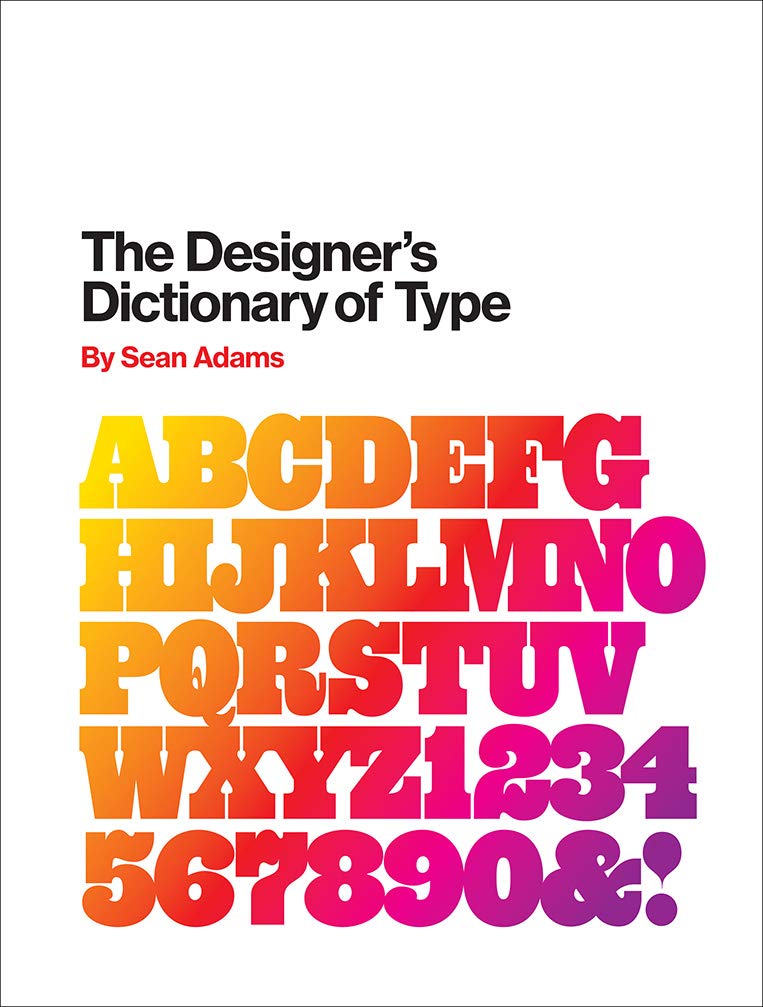
The Designer's Dictionary of Type
Sean Adams
The Designer’s Dictionary of Type follows in the footsteps of The Designer’s Dictionary of Color, providing a vivid and highly accessible look at an even more important graphic design ingredient: typography. From classic fonts like Garamond and Helvetica, to modern-day digital fonts like OCR-A and Keedy Sans, author and designer Sean Adams demystifies 48 major typefaces, describing their history, stylistic traits, and common application. Adams once again provides eye-catching illustrated examples, this time showcasing the beauty and expressiveness of typography, as employed by the world’s greatest designers. Organized by serif, sans-serif, script, display, and digital typefaces, this book will be a vital guide for designers, teachers, or students looking to gain a foundational understanding of the art, practice, and history of typography.
Review
"In Sean Adams's new book, The Designer's Dictionary of Type, he examines 48 of the most important typefaces, their history, and how they can be put to work." -- Fast Company's Co.Design
From the Author
Sean Adams is a founding partner of the award-winning California design firm AdamsNorioka and has been cited as one of the forty most important people shaping design internationally. A former AIGA national board member and President of AIGA Los Angeles, he teaches at Art Center College of Design and is a frequent lecturer and competition judge. Sean is the author of The Designer’s Dictionary of Color, and the co-author of Logo Design Workbook, Color Design Workbook, and the series Masters Design. He lives and works in Los Angeles.